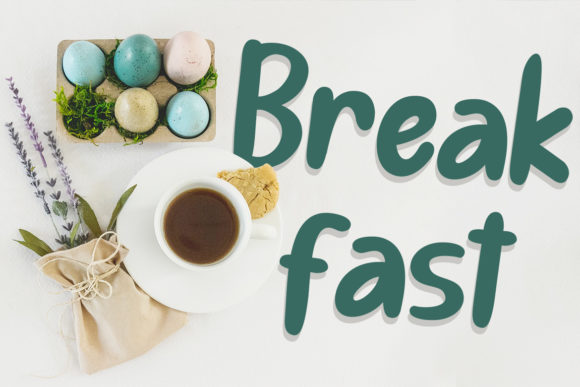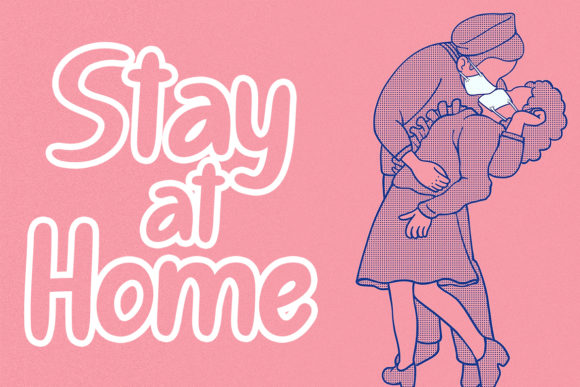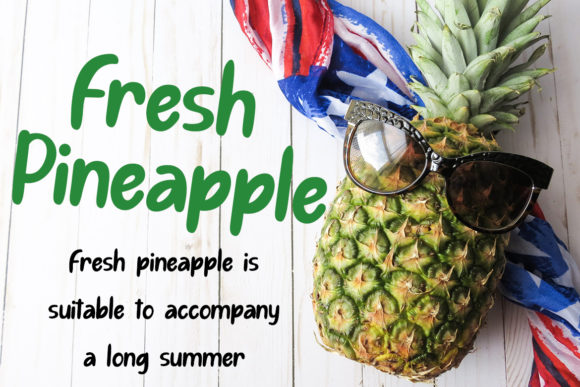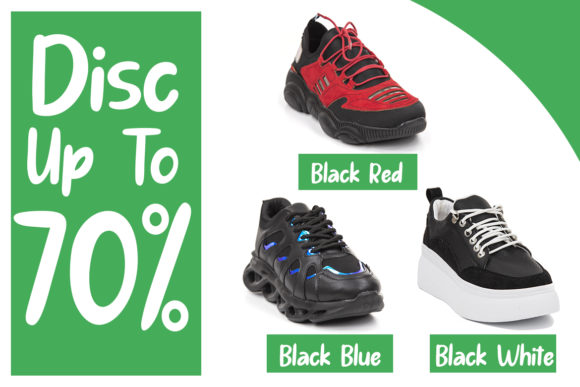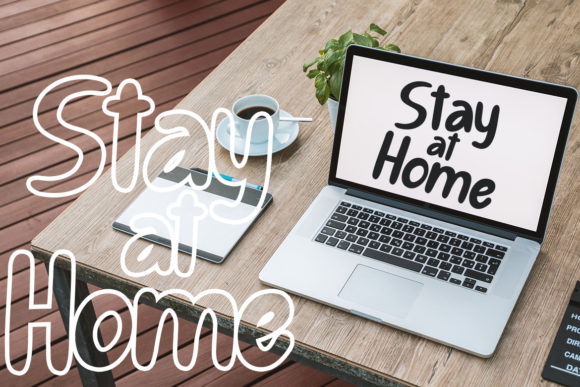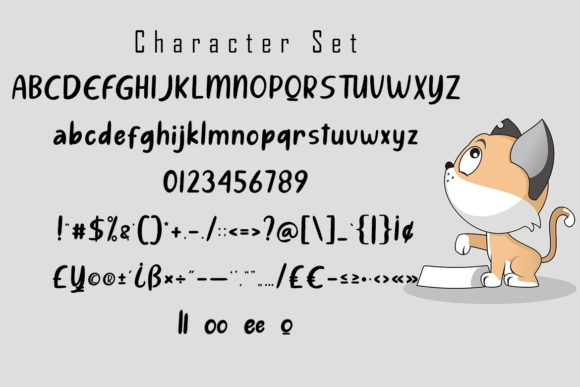
Bullost Font: A Charming Handwritten Font for DIY Projects
Are you a designer or crafter looking for a unique and authentic font to bring your DIY projects to life? Look no further than Bullost Font! This gorgeous handwritten font is the result of a stunning pairing of a brush pen and pencil, making it look incredibly endearing and authentic.
The Story Behind Bullost Font
Bullost Font is a one-of-a-kind font that has been carefully crafted to capture the essence of handwritten writing. The font’s creator used a combination of a brush pen and pencil to create a truly unique and organic look. The result is a font that is both elegant and playful, making it perfect for a wide range of DIY projects.
What Makes Bullost Font So Special?
So, what sets Bullost Font apart from other fonts? Here are just a few reasons why this font is a cut above the rest:
- Unique and Authentic Look: The combination of a brush pen and pencil gives Bullost Font a truly unique and authentic look that is hard to find in other fonts.
- Handwritten Charm: Bullost Font has a charming, handwritten quality that makes it perfect for DIY projects, such as crafting, scrapbooking, and journaling.
- Elegant and Playful: This font is both elegant and playful, making it suitable for a wide range of projects, from formal invitations to fun and creative crafts.
- Easy to Read: Despite its unique look, Bullost Font is easy to read, making it perfect for use in body text, headings, and titles.
Using Bullost Font in Your DIY Projects
Bullost Font is a versatile font that can be used in a wide range of DIY projects, including:
- Crafting: Use Bullost Font to add a personal touch to your crafting projects, such as card making, scrapbooking, and journaling.
- Sign Making: Create eye-catching signs for your home or business using Bullost Font.
- Invitations: Use Bullost Font to create beautiful and unique invitations for special occasions, such as weddings, birthday parties, and baby showers.
- Stationery: Add a touch of elegance and sophistication to your stationery with Bullost Font.
Tips for Getting the Most Out of Bullost Font
Here are a few tips for getting the most out of Bullost Font:
- Experiment with Different Sizes: Bullost Font looks great in a variety of sizes, so don’t be afraid to experiment to find the perfect size for your project.
- Pair with Other Fonts: Try pairing Bullost Font with other fonts to create a unique and interesting look.
- Use in Combination with Images: Use Bullost Font in combination with images to add a personal touch to your projects.
Bullost Font is a truly unique and special font that is perfect for designers and crafters looking to add a personal touch to their DIY projects. With its charming, handwritten quality and elegant and playful look, Bullost Font is sure to bring any project to life. So why not give Bullost Font a try and see the difference it can make in your next DIY project?